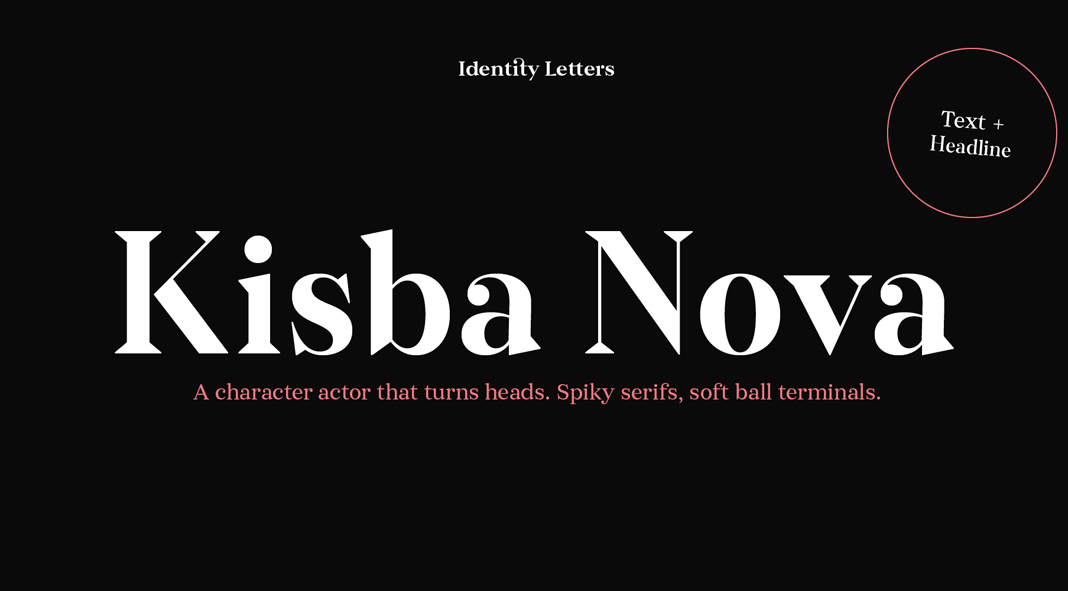
Kisba Nova, a serif font family that attracts attention with spiky serifs and soft ball terminals.
Designed in 2021 by Moritz Kleinsorge of foundry Identity Letters, Kisba Nova has been created with the intention to attract attention. The Kisba Nova font family masterfully combines sharp wedge serifs and spiky spurs with soft and round ball terminals. Infused by the contrast of neoclassical strokes, this unique typeface provides visual extremes for your typographic work. Kisba Nova comes in two optical sizes (Headline and Text) to make it look great in every situation.
Made for sizes of 24 Pt. and beyond, the Kisba Nova Headline subfamily consists of seven weights ranging from Thin to Black. The extraordinarily designed, thin and monolinear diacritics, punctuation marks, and symbols underline this modern and elegant style. Equipped with numerous OpenType features including a large set of ligatures, extended language support, case-sensitive forms, different sets of figures and arrows, Kisba Nova Headline enables sensational designs in both web and print projects.
The Kisba Nova Text subfamily also consists of seven weights ranging from Thin to Black. It offers countless possibilities for use in body texts and subheadings. Just like its headline companion, it also comes with plenty of OpenType features such as many ligatures, extended language support, case-sensitive forms, different sets of figures and arrows. This way, it also enables sensational designs in web and print layouts. The Kisba Nova Text subfamily is characterized by decreased contrast, more generous letter proportions, and wider spacing.